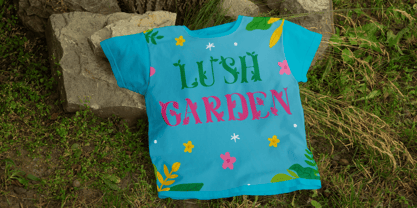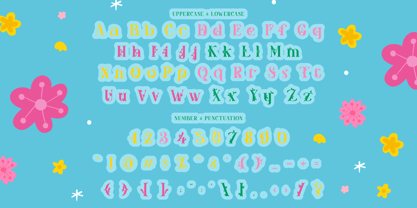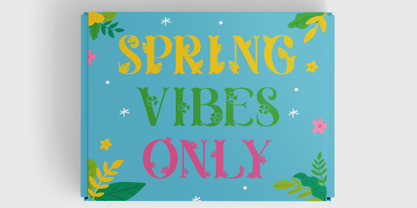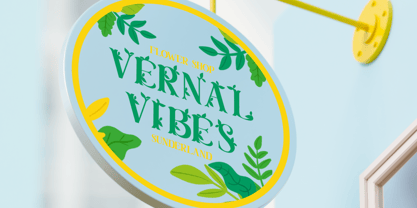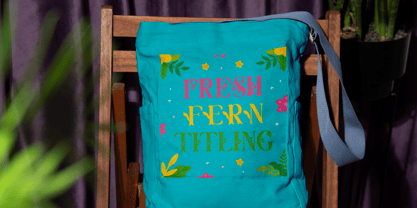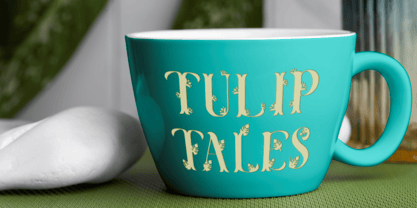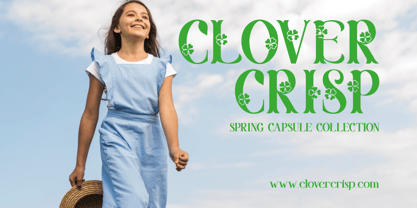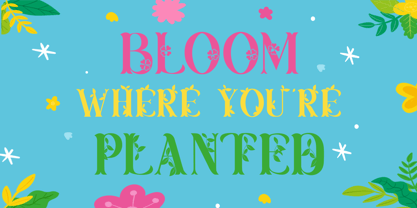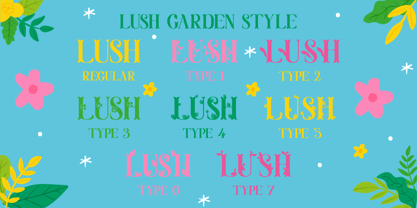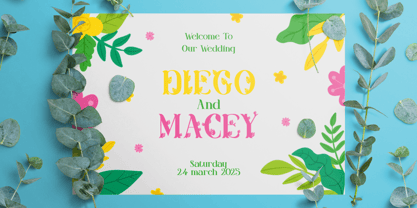
Lush Garden
The Lush Garden Font Family was designed by Yesie Erma Yunita and published by Shanaf. Lush Garden contains 8 styles and family package options. More about this family
Lush Garden is a decorative spring-style font that captures the essence of nature, growth, and joyful energy. Every letter is meticulously crafted with organic embellishments—floral vines, leaves, and petals—that wrap around its elegant curves and bold serifs. The font comes in a vibrant palette of spring colors such as green, yellow, and pink, designed to evoke freshness and positivity. Perfectly suited for cheerful branding, children’s designs, or seasonal campaigns, this font turns ordinary text into an expressive artwork. Its playful, quirky vibe is balanced by refined legibility, making it ideal for standout headlines and creative compositions.
Optimized for use in logos, invitations, packaging, greeting cards, and promotional materials, Lush Garden gives a natural and festive identity to any project. Whether you're designing wedding cards, springtime posters, or eco-conscious product labels, this font breathes life into your layout. The font layout is clean yet vibrant, ensuring every word blossoms with visual interest. Bring your spring-themed projects to life with a font that radiates floral charm and decorative flair.